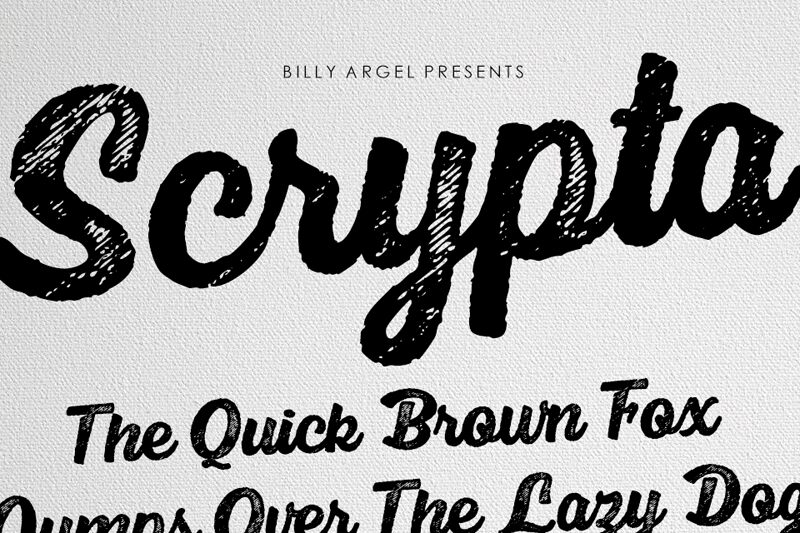
Scrypta Bold Italic by Billy Argel Fonts is an edgy and distinctive eroded script font. This bold typeface with its italicized style brings a unique flavor to your creative projects. Its rugged and weathered appearance makes it perfect for designs that require a touch of rawness, such as grunge posters, album covers, or branding for rock bands. Scrypta Bold Italic also lends itself well to vintage-style packaging, t-shirt designs or logos for tattoo shops. Its bold weight commands attention while the italicized style adds an unexpected twist to any design. Add Scrypta Bold Italic to your font collection today and make your projects stand out!